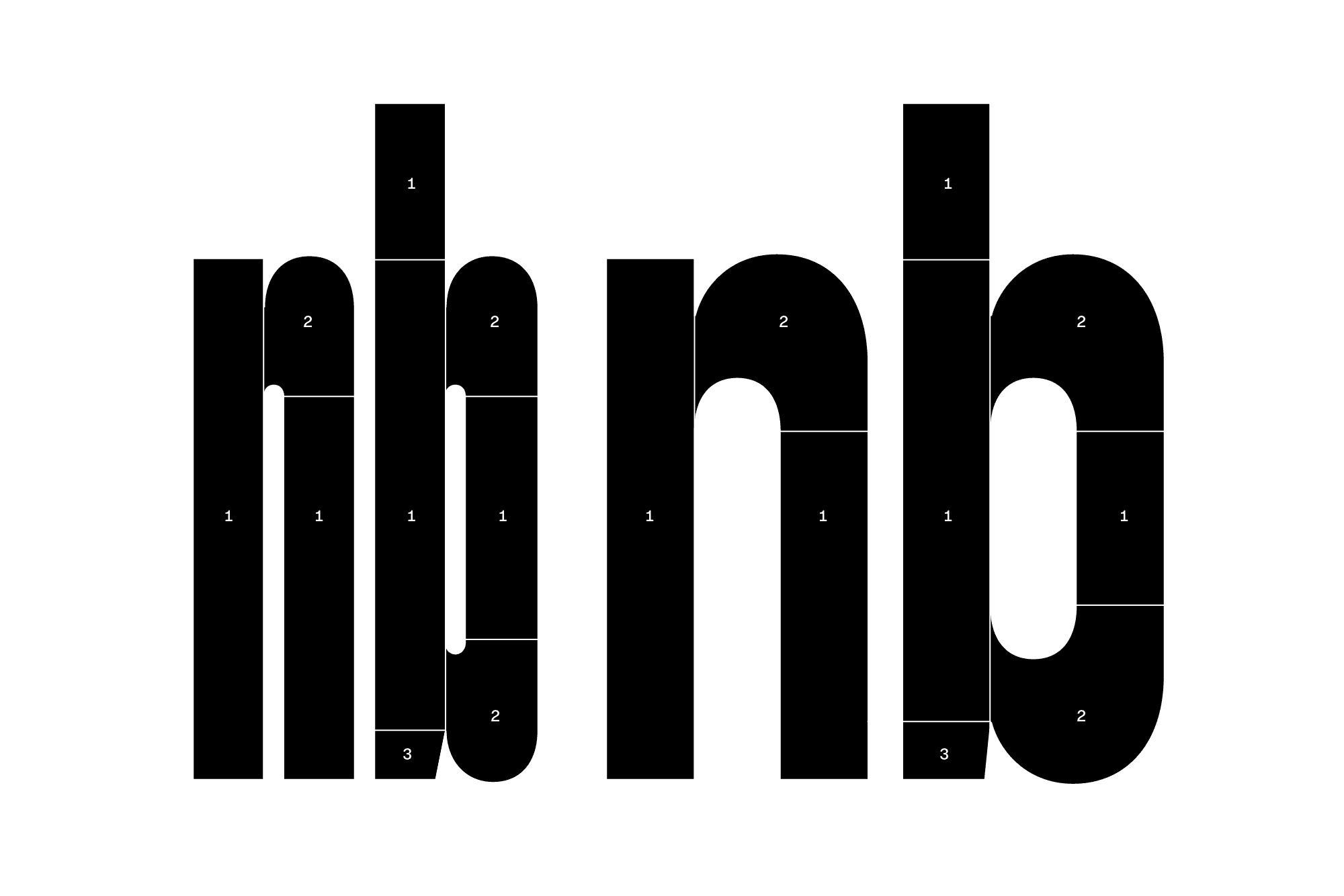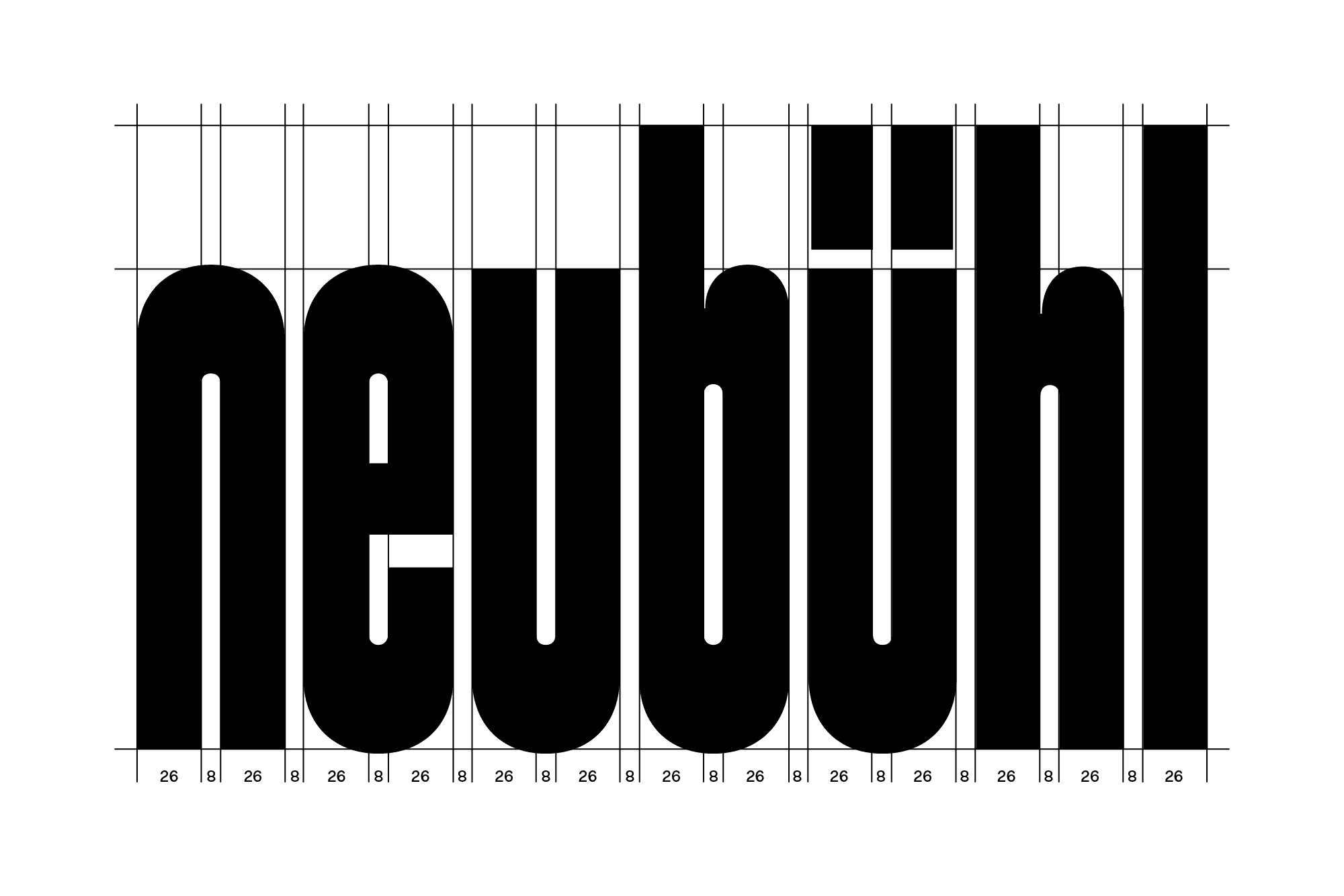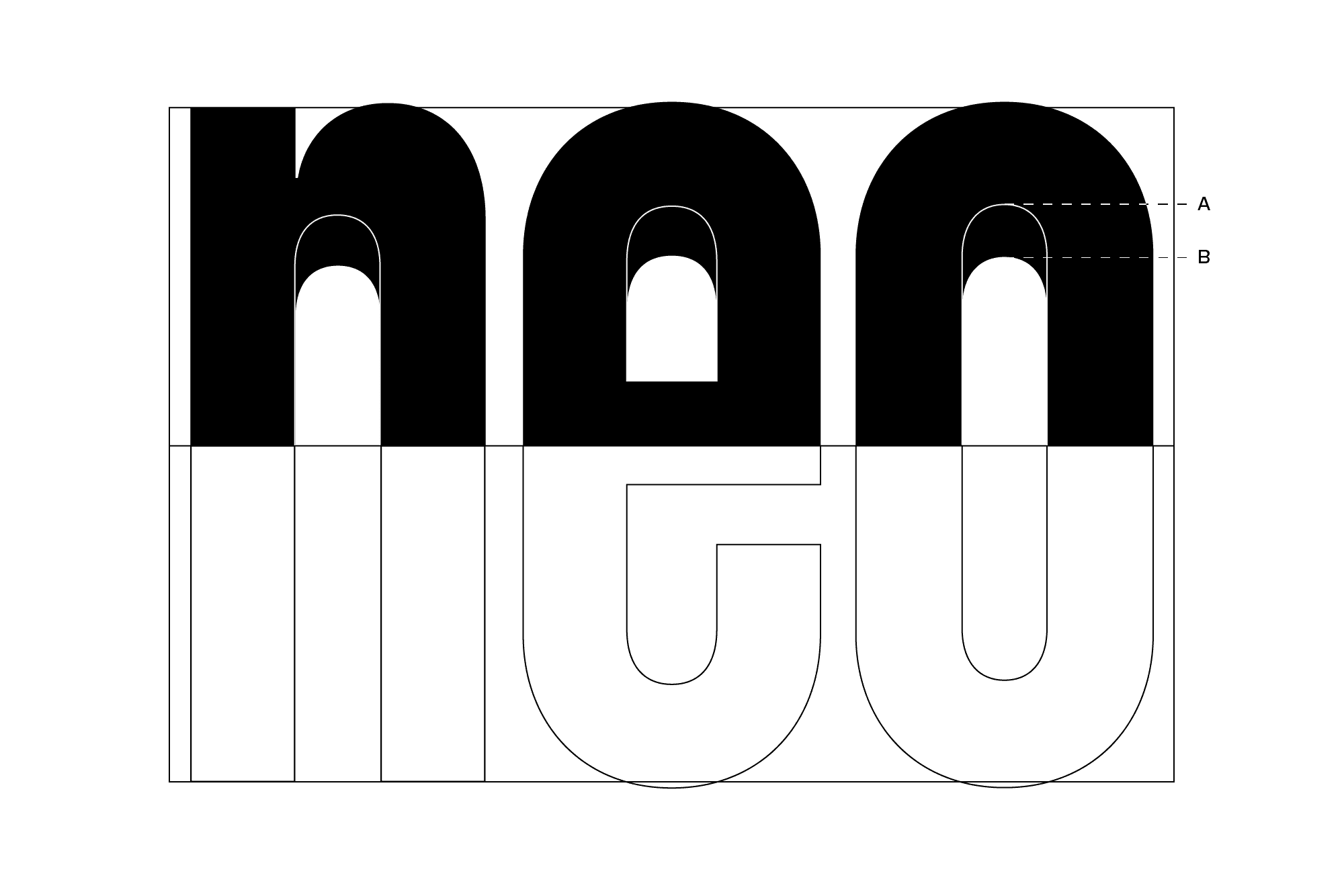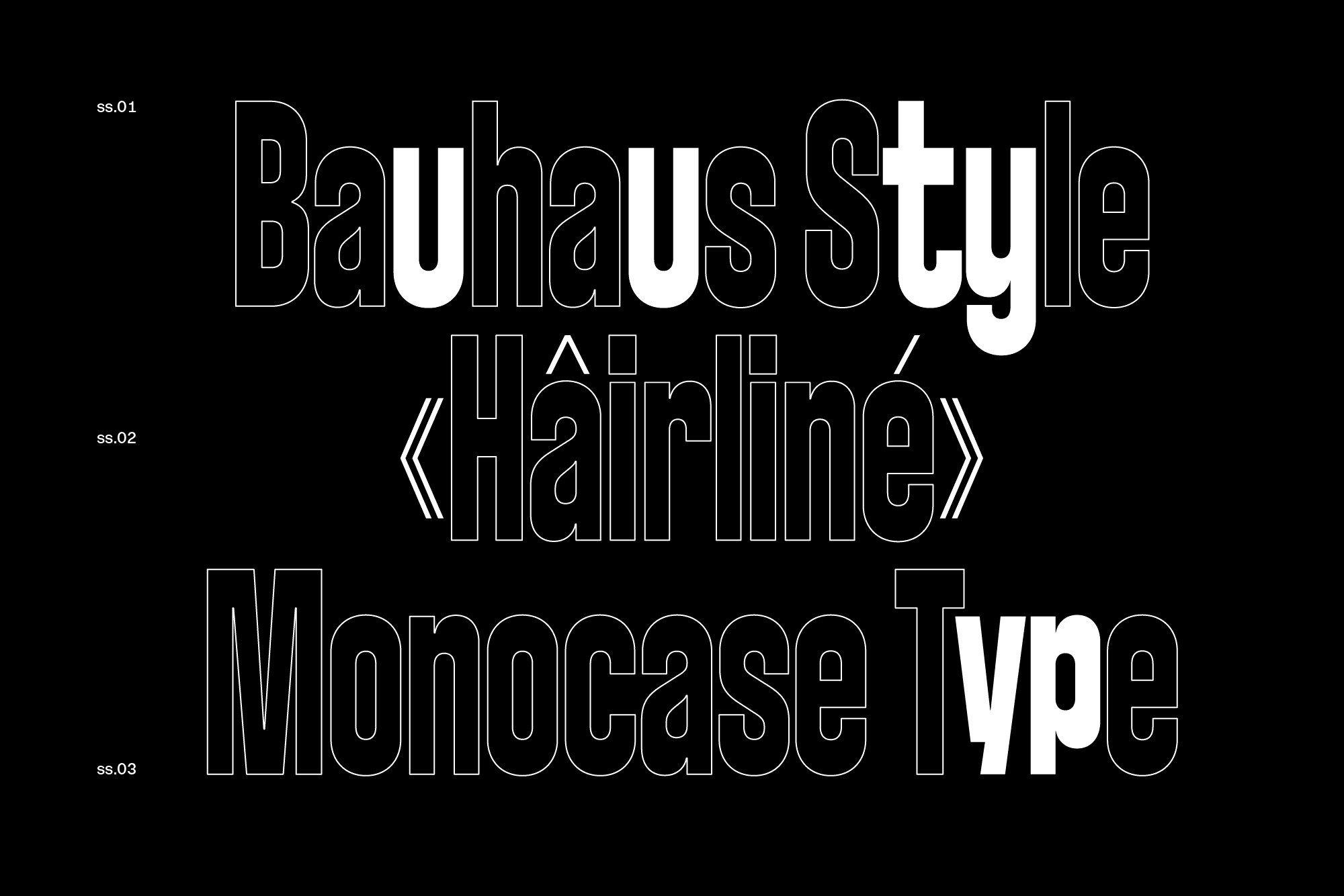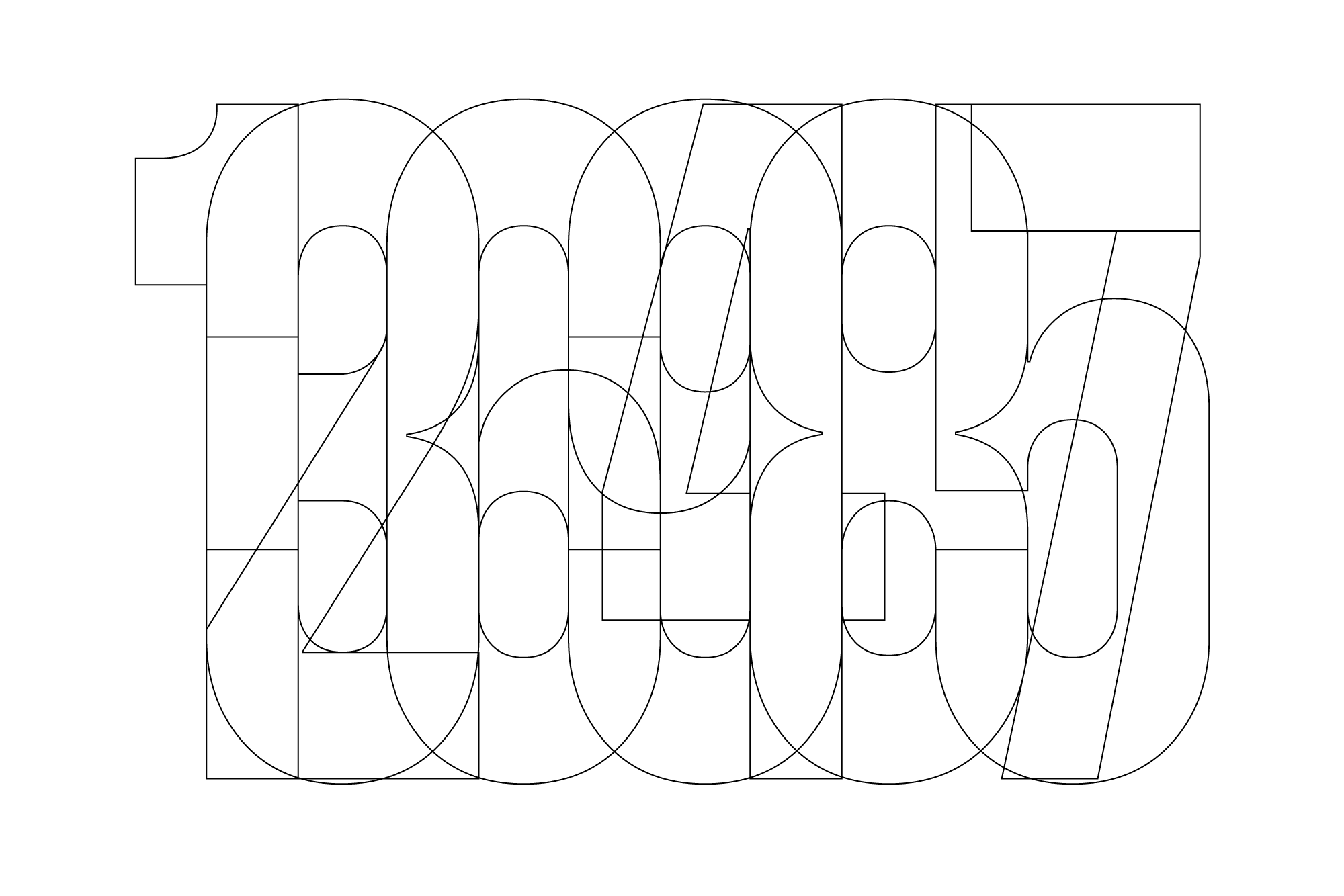
Bandit
If you thought Swiss modernism had nothing to do with the American Old West, think again. Bandit belongs to a gang of four whose lineage crosses the Atlantic. The typeface is the result of a happy marriage between burgeoning rationalist ideas and American wood type shapes, which makes it perfect for expressive applications ranging from (wanted) posters, headlines and section dividers. In the 1930s, designers in Switzerland – influenced by modernist ideas and forms – drew geometric typefaces using a modular system. At the same time, the Swiss shapes’ inverted contrasts share features with 18th and 19th century North American wood type. This incongruity is the starting point behind Bandit, which also comes armed with a variable font that stretches faster than its shadow. The family is a synthesis of these influences. It results in a flexible, multi-condensed display typeface with a geometric construction softened by the impact of wood type.
1 Embru Logo, Pierre Gauchat, 1930
2 Verkaufsaustellung Poster, Max Bill, 1931
3 Neubühl Poster, Max Bill, 1931
4 Pro Arte, Max Miedinger, Haas’sche Schriftgiesserei, 1954
5 Playbill, Robert Harling, Stephenson Blake, 1938
- Fractions
- tnum
- Tabular Figures
- salt
- Stylistic Alternates
- liga
- Standard Ligatures
- sinf
- Scientific Inferiors
- ss01
- Bauhaus
- ss02
- Hairline
OpenType Features
Bauhaus (ss01)
Ruminant
Hairline (ss02)
(é–tap,é)
Monocase (ss03)
Mapping
Case-sensitive Forms (case)
(AB–C)
Denominators (dnom)
H123
Fractions (frac)
x1/2 x3/4
Standard Ligatures (liga)
FJ ff fi fl
Localized Forms (locl)
poştă
Numerators (numr)
H123
Ordinals (ordn)
2a 2o
Stylistic Alternates (salt)
Wrangler
Scientific Inferiors (sinf)
H2O
Subscript (subs)
x123
Superscript (sups)
x123
Tabular Figures (tnum)
H123